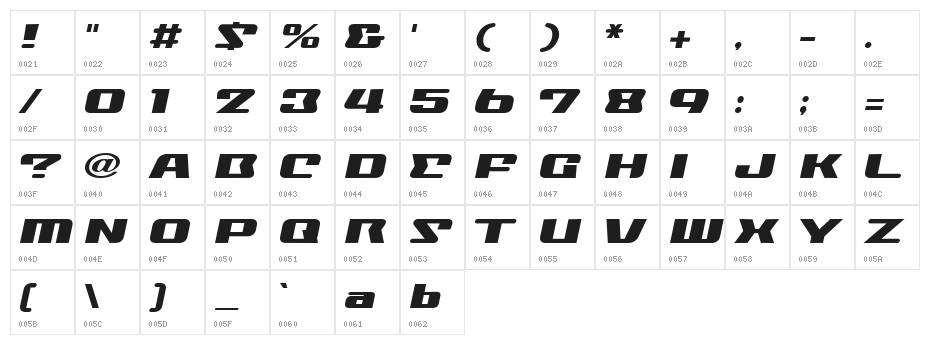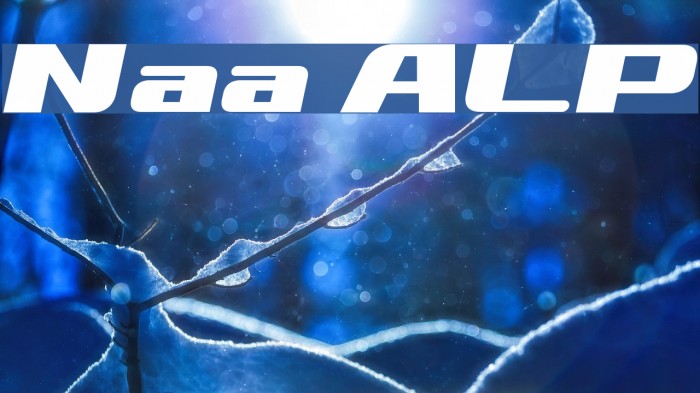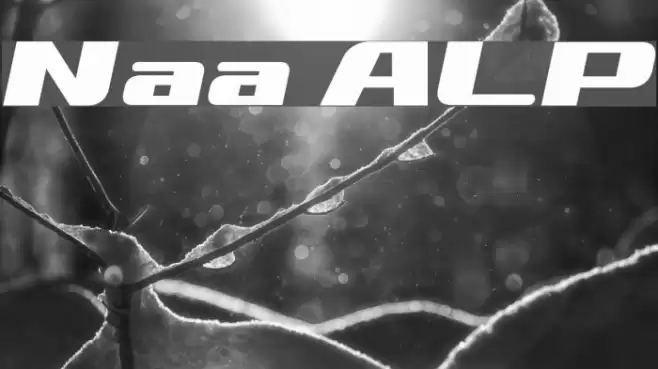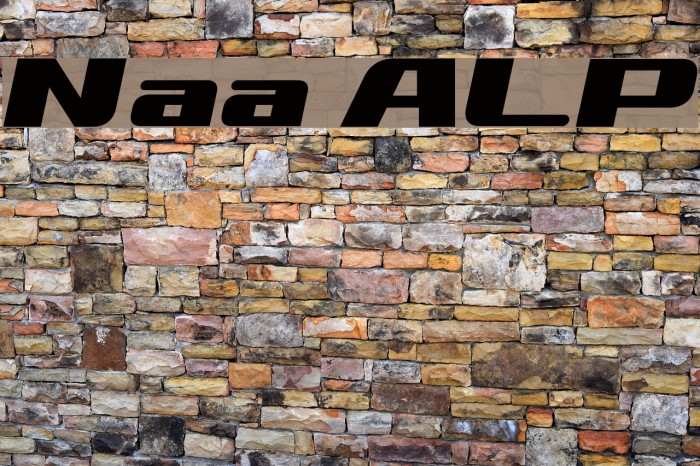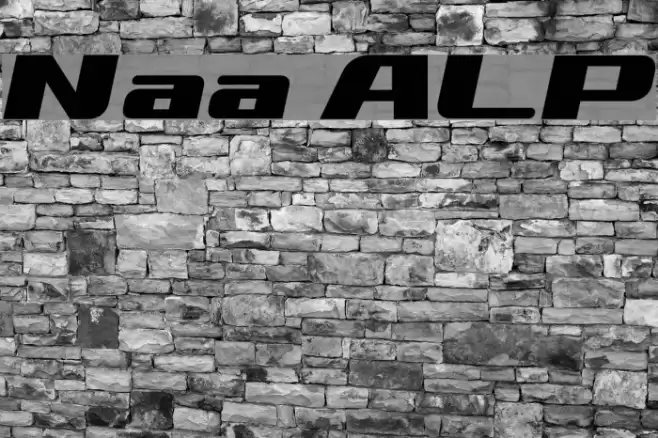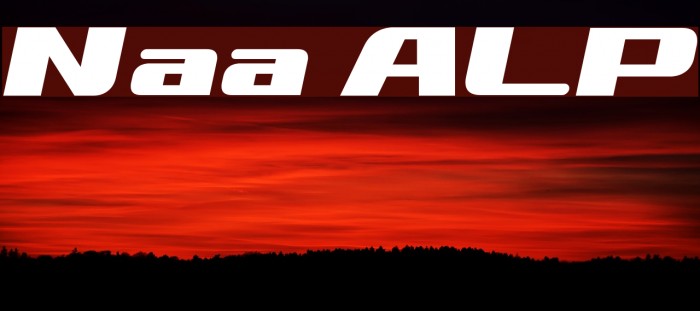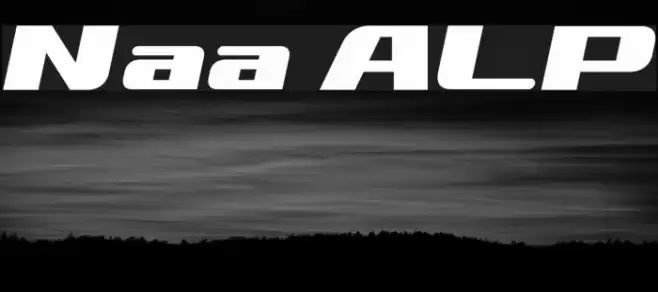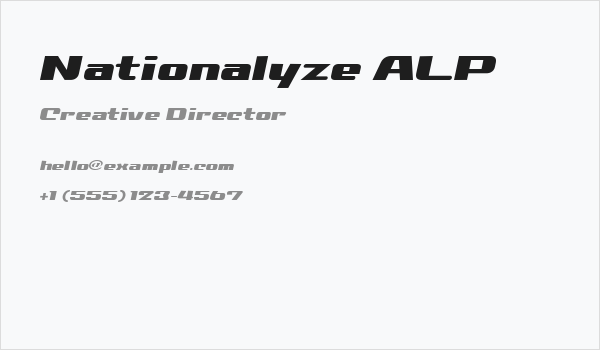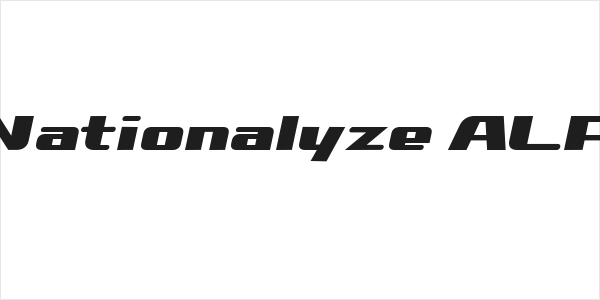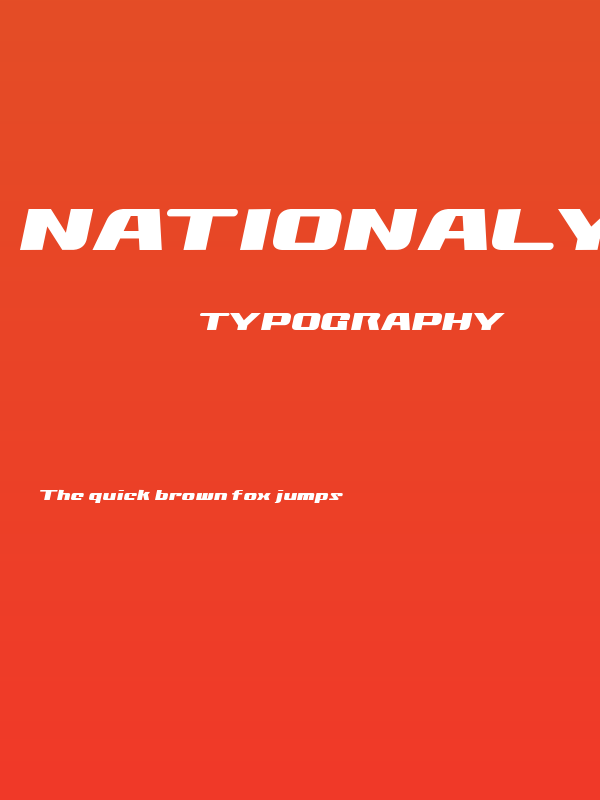
Nationalyze ALP Font
Nationalyze ALP Description
This font features a bold and dynamic style with a futuristic and sporty appearance. The characters are slightly italicized, giving them a sense of motion and energy. The uppercase letters are angular and sharp, while the lowercase letters maintain a consistent flow with rounded edges. The numbers are bold and easily readable, matching the overall aesthetic of the font. Special characters are designed with a similar boldness, ensuring consistency across all elements. This font is well-suited for projects that require a modern and energetic look.
Use CaseHeadlines, Logos, Branding
Proposed ProjectsIdeal for sports branding, automotive designs, tech-related projects, and dynamic advertising.